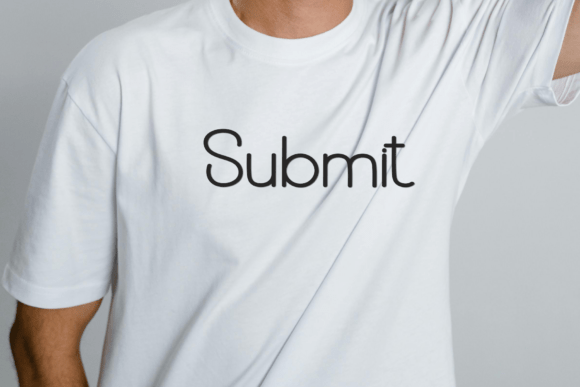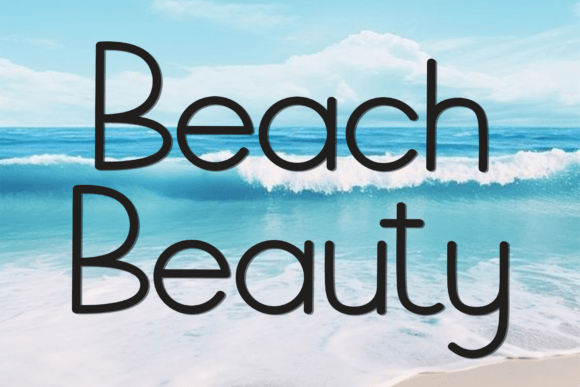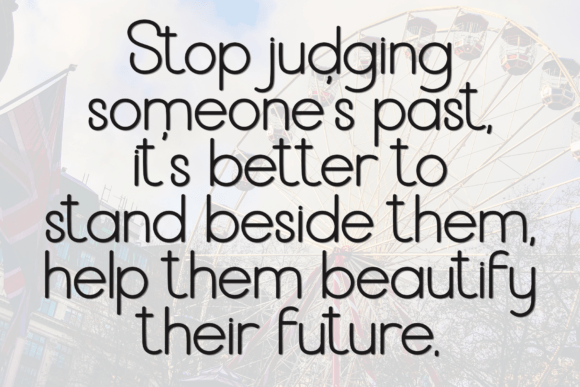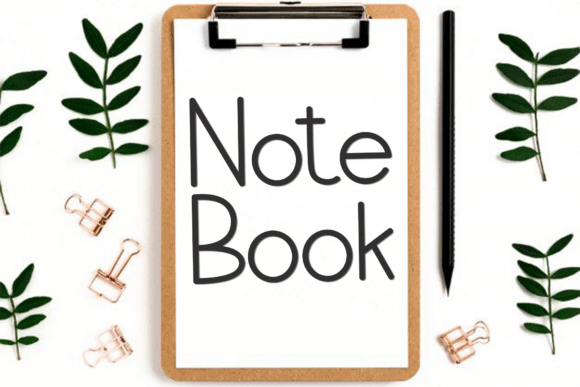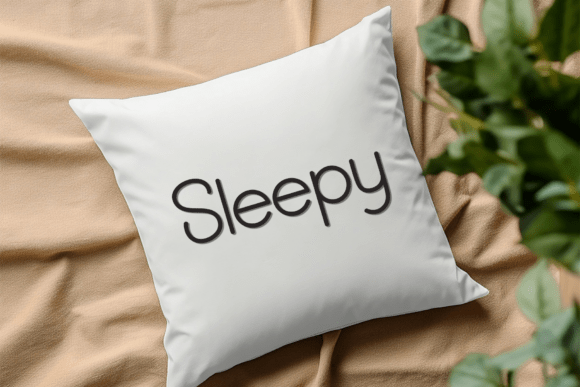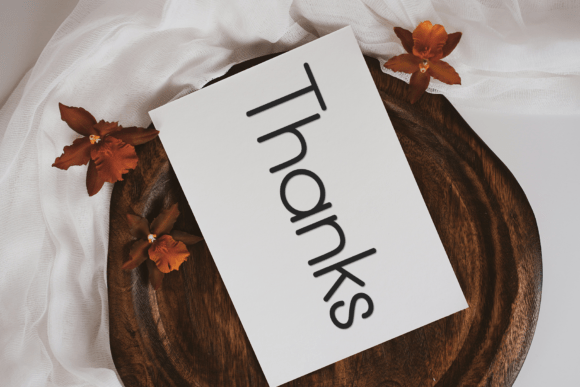
Discovering the Perfect Balance of Modern Elegance
As designers, we’ve all been there – staring at a blank canvas, struggling to find the perfect font to elevate our next project. The hunt for the perfect typeface can be a tedious one, but what if we told you that the search is over? Enter Bekind Sans, a stunning sans-serif font that embodies the perfect blend of modern sophistication and approachable simplicity.
Bekind Sans Font is more than just a typeface – it’s a versatile tool designed to bring a touch of timeless elegance to your typography. With its clean, monoline structure and soft, rounded terminals, this font is perfect for a wide range of professional and creative projects. Whether you’re working on a fashion branding campaign, crafting a chic magazine layout, or designing sleek wedding stationery, Bekind Sans is the ideal choice to add a touch of sophistication and refinement.
Bekind Sans Font Key Features
- Font Family: Bekind Sans, a modern sans-serif font designed for clear and friendly communication.
- Character Count: Supports over 2000 glyphs, including Latin, Cyrillic, and Greek alphabets, as well as punctuation and symbols.
- Font Size and Resolution: Designed for optimal legibility at font sizes 10-24 points, with a recommended resolution of 72-120 dpi.
- Unique Characteristics: Bekind Sans features a clean and rounded design, with subtle variations in stroke width and terminal shapes, making it suitable for a wide range of applications, from body text to display headings.
Bekind Sans Font Review
I recently had the chance to work with the Bekind Sans font, and I must say it’s a unique and intriguing choice. Here’s my honest review:
- It has a friendly and approachable feel, making it perfect for body text and captions.
- The font is highly legible, even at smaller sizes, which is a must for digital design.
- The Bekind Sans font has a great balance between serif and sans-serif elements, making it versatile for various design applications.
- It’s a great choice for creating a modern and clean look, perfect for branding and marketing materials.
- The font may not be suitable for titles or headlines, as it can be a bit too casual for that purpose.
- The font family is relatively small, with only a few weights and styles available, which may limit its use in certain design situations.
Overall, I think the Bekind Sans font is a great choice for designers looking for a friendly and approachable font for body text and captions. While it may not be the best choice for titles or headlines, it’s a great addition to any design library. With its clean and modern look, it’s perfect for creating a cohesive brand identity.
Bekind Sans Font: A Practical Application Guide
The Bekind Sans Font is a modern sans-serif typeface designed for digital use. To use Bekind Sans in your design projects, follow these steps:
To get the most out of the Bekind Sans Font:
- Use it for digital projects: Bekind Sans is designed specifically for digital use, making it perfect for websites, social media, and mobile apps
- Vary font sizes and weights: Use different font sizes and weights to create visual hierarchy and emphasis in your designs
- Combine with other fonts: Pair Bekind Sans with other sans-serif or serif fonts to create a unique and interesting typography
The Bekind Sans Font is perfect for:
- Website headers and titles: Use Bekind Sans for website headers and titles to create a modern and professional look
- Alternatives to Bekind Sans Font for Designers
Inter is a modern sans-serif font designed by Rasmus Andersson. It is known for its clean lines, open counters, and highly legible. Use Inter for digital products, editorials, and any situation where you want a clean and neutral font.
Inter compares to Bekind Sans Font in its clean lines and high legibility, but it has a more modern and geometric feel to it. Inter is also more versatile and comes in a wide range of weights and styles.
Yes, Bekind Sans is a highly customizable font. It includes a wide range of OpenType features, including ligatures, swashes, and stylistic sets. You can also use font editing software to modify the font to fit your specific needs.